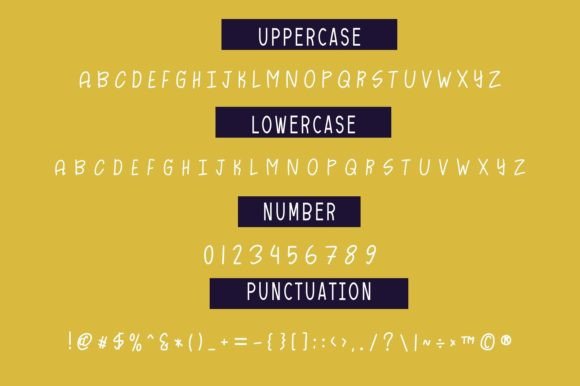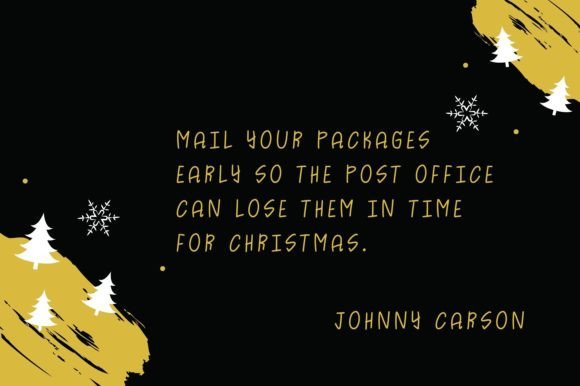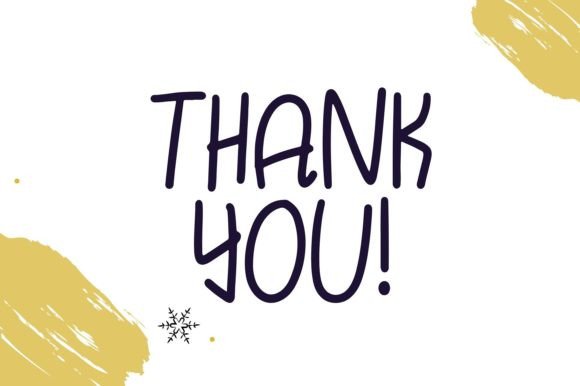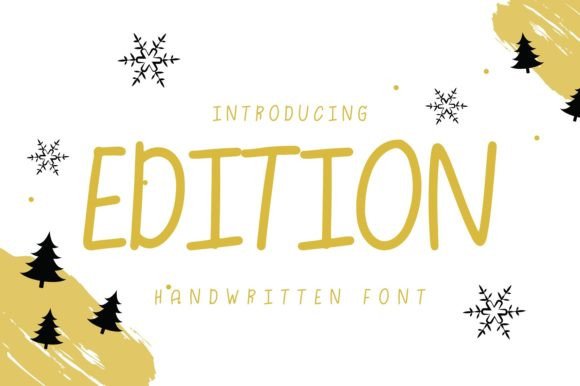
Introducing Edition Font: The Ultimate Choice for Playful and Authentic Designs
Are you on the hunt for a font that embodies playfulness and authenticity? Look no further than Edition Font, a cute and festive handwritten font that’s perfect for a wide range of design projects. With its light and airy characters, Edition Font is sure to add a touch of whimsy and charm to any design.
What Makes Edition Font So Special?
Edition Font is a unique and versatile font that’s suitable for a variety of design projects, from blog posts and logos to branding, ads, invitations, greeting cards, planners, photo albums, decorations, and more. Its lightness and playfulness make it an excellent choice for designers and crafters who want to add a personal touch to their work.
One of the standout features of Edition Font is its ability to evoke a sense of authenticity and charm. Its handwritten characters have a warm and inviting feel that’s perfect for creating designs that feel personal and relatable. Whether you’re working on a project for a client or creating something for your own brand, Edition Font is sure to help you achieve your design goals.
Uses for Edition Font
So, what can you use Edition Font for? The possibilities are endless! Here are just a few ideas to get you started:
- Blog Posts: Add a touch of personality to your blog posts with Edition Font. Its lightness and playfulness make it perfect for creating engaging and readable content.
- Logos and Branding: Use Edition Font to create a unique and memorable logo for your brand. Its handwritten characters will help your brand stand out and feel more approachable.
- Ads and Marketing Materials: Edition Font is perfect for creating eye-catching ads and marketing materials. Its festive and playful feel will help grab the attention of your target audience.
- Invitations and Greeting Cards: Add a personal touch to your invitations and greeting cards with Edition Font. Its handwritten characters will make your cards feel more special and heartfelt.
- Planners and Photo Albums: Use Edition Font to add a touch of whimsy and charm to your planners and photo albums. Its lightness and playfulness make it perfect for creating fun and engaging designs.
- Decorations: Edition Font is also great for creating decorations, such as party banners, signs, and other DIY projects. Its festive feel will add a touch of excitement and energy to any celebration.
Why Choose Edition Font?
So, why should you choose Edition Font for your next design project? Here are just a few reasons:
- Unique and Versatile: Edition Font is a one-of-a-kind font that’s suitable for a wide range of design projects.
- Playful and Authentic: Its handwritten characters have a warm and inviting feel that’s perfect for creating designs that feel personal and relatable.
- Light and Airy: Edition Font’s lightness makes it easy to read and perfect for creating designs that are engaging and readable.
In conclusion, Edition Font is a cute and festive handwritten font that’s perfect for designers and crafters who want to add a touch of playfulness and authenticity to their work. Its lightness and versatility make it suitable for a wide range of design projects, from blog posts and logos to branding, ads, invitations, greeting cards, planners, photo albums, decorations, and more. So why wait? Add Edition Font to your design toolkit today and start creating engaging and memorable designs that will leave a lasting impression!